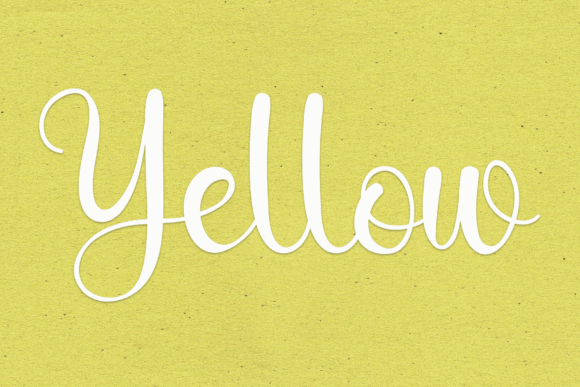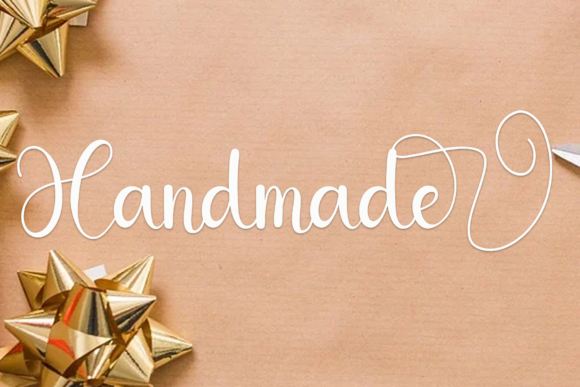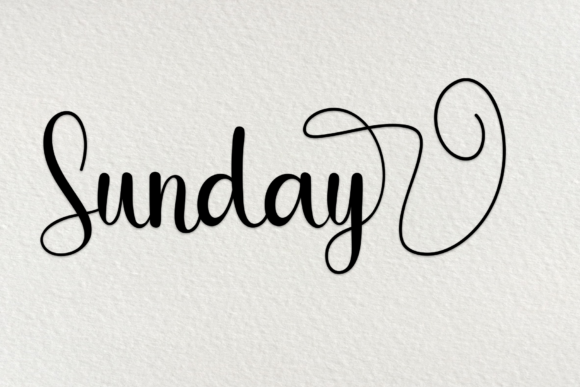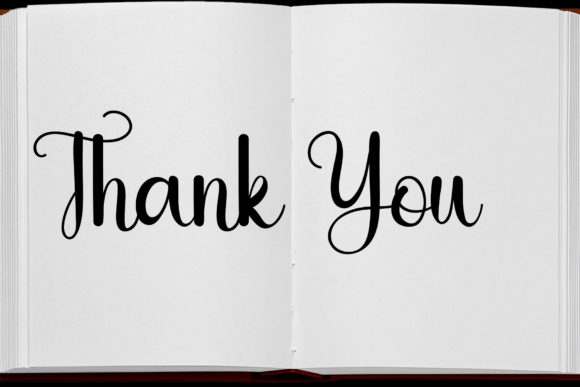
Paper Font
About Paper Font
Introducing a smooth, elegant, and flowing handwritten font with a beautiful and balanced character. This font seamlessly fits into a wide range of designs, adding a touch of grace and sophistication to your creative projects. Incorporate it into your most imaginative ideas, and watch as they come to life with a sense of style and charm.
The distinctive quality of this handwritten font lies in its smooth and flowing design, bringing an element of fluidity to any text. The balanced character ensures versatility, making it suitable for a diverse set of design applications. Whether you’re working on logos, branding, invitations, or other creative projects, this font adapts effortlessly to various contexts.
Visualize this elegant handwritten font enhancing your designs, creating a visual experience that is both refined and captivating. Envision it becoming a central element in your branding, contributing to a polished and sophisticated visual identity. The balanced character not only adds aesthetic appeal but also ensures readability, making it a practical choice for effectively conveying your message.
In essence, this handwritten font goes beyond being a mere tool for text; it’s a design element that brings smoothness, elegance, and flow to your projects. Its versatility allows it to seamlessly integrate into your most creative ideas, breathing life into them with a touch of sophistication. Choose this font to elevate your designs, turning each project into a visually captivating expression of your creativity.